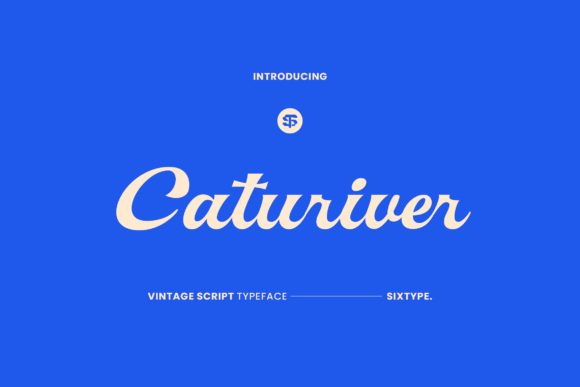
Caturiver Font: A Timeless Vintage Script Font for Your Design Needs
In the world of typography, few fonts manage to capture the essence of a bygone era quite like Caturiver. This exquisite vintage script font is designed to transport you back to the golden age of vintage design, infusing your projects with a nostalgic charm and timeless appeal that is hard to resist. Crafted with meticulous attention to detail, Caturiver embodies the elegance and sophistication of traditional script fonts, making it an ideal choice for a wide range of design applications.
Key Features of Caturiver Font
- Vintage Script Style: Caturiver boasts a classic script style reminiscent of the early 20th century, characterized by flowing lines and elegant letterforms.
- PUA Encoding: This font is PUA (Private Use Area) encoded, allowing easy access to a wide range of glyphs and ligatures, making it versatile for various design projects.
- Nostalgic Appeal: The font’s design is aimed at evoking a sense of nostalgia, perfect for projects that require a retro or vintage feel.
- High Versatility: Suitable for a variety of design projects including logos, signage, apparel, packaging, and more.
Ideal Design Applications for Caturiver
Caturiver’s versatility makes it an excellent choice for numerous design applications. Here are some of the areas where this vintage script font truly shines:
- Retro Logos: Give your brand a vintage makeover with a logo that speaks of tradition and heritage.
- Signage: Whether it’s for a vintage cafe, a retro-themed event, or an antique store, Caturiver adds a touch of class and nostalgia to any signage.
- Apparel Designs: From t-shirts to hats, this font can turn simple merchandise into unique, eye-catching items.
- Packaging: Add a touch of elegance and vintage charm to your product packaging, making it stand out on store shelves.
Typography and Readability
One of the standout features of Caturiver is its impeccable typography. Each character is carefully designed to ensure readability while maintaining that vintage flair. The letters flow gracefully, mimicking the style of handwritten love letters and formal invitations from the past. This attention to detail not only makes Caturiver aesthetically pleasing but also highly functional for a variety of design needs.
The font’s readability is crucial for its application in both digital and print media. Whether you’re designing a website, a brochure, or a poster, Caturiver ensures that your message is conveyed with elegance and clarity.
Why Choose Caturiver for Your Projects?
In a world where design trends come and go, Caturiver stands out for its timeless appeal. Here are a few reasons why you should consider Caturiver for your next project:
- Unique Aesthetic: Caturiver offers a unique aesthetic that is hard to find in modern fonts, which often lean towards minimalism and simplicity.
- Ease of Use: Thanks to its PUA encoding, using Caturiver is straightforward, allowing you to access a wide range of glyphs and ligatures with ease.
- Versatility: Its suitability for various design applications makes Caturiver a versatile addition to any designer’s font library.
- Nostalgic Value: For projects that aim to evoke a sense of nostalgia or pay homage to vintage design, Caturiver is an invaluable resource.
Caturiver is more than just a font; it’s a design tool that allows you to create projects with a distinct vintage flair. Its elegant script, combined with modern encoding for ease of use, makes it a valuable asset for designers looking to add a touch of nostalgia and sophistication to their work. Whether you’re aiming to create retro logos, vintage-inspired signage, or simply want to add some classic charm to your designs, Caturiver is a font that delivers on both style and substance.
With Caturiver, you can ensure that your designs stand out with a unique blend of vintage charm and modern usability. It’s an excellent choice for anyone looking to infuse their projects with a sense of history and elegance, proving that sometimes, the old ways can indeed be the best.